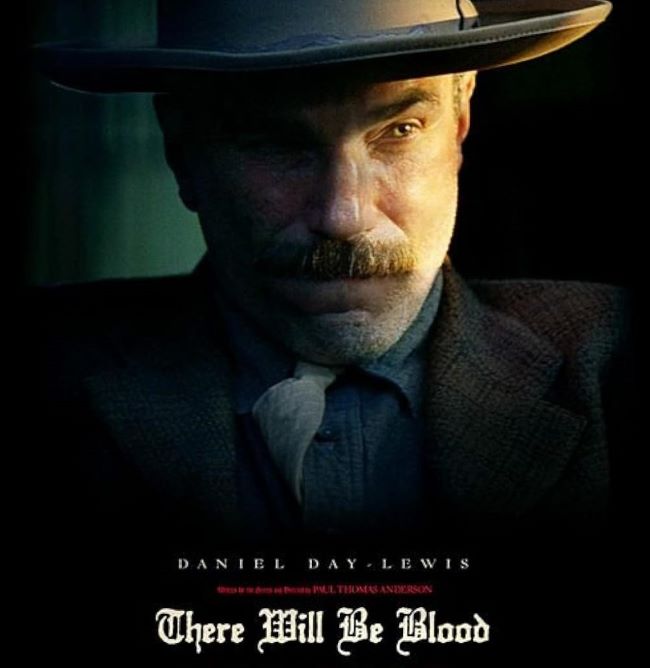
There Will Be Blood Font
The There Will Be Blood Font conveys the weight, intensity, and darkness of Paul Thomas Anderson’s 2007 masterpiece. Its Gothic, almost calligraphic letterforms feel heavy and ancient, perfectly matching the film’s themes of greed, ambition, and moral decay. The typography evokes a sense of history and inevitability, as if each letter were carved in stone or inked in an old manuscript. Fonts similar in style include Pterra, Blackletter, or Cloister Black, all offering that same medieval gravitas and dramatic presence. Free alternatives can capture this solemn, commanding aesthetic, making them ideal for cinematic posters, historical storytelling, or projects that demand a sense of weight and authority.